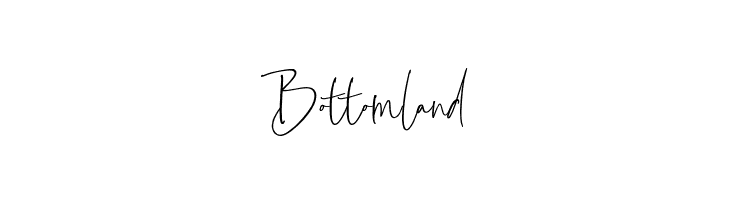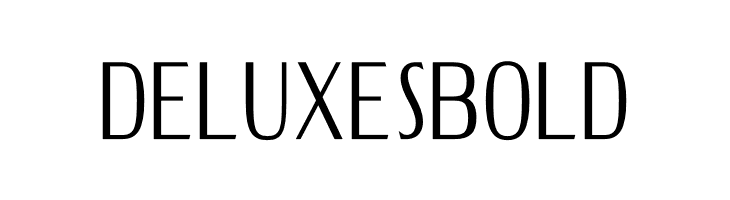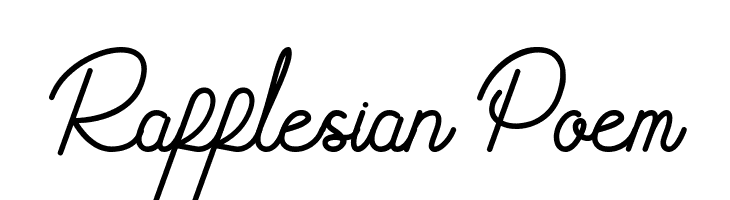
A bold, futuristic italic font with sharp angles and tight spacing.
An elegant script font with flowing, ornate letters and intricate flourishes.
A bold, dynamic handwritten font with playful curves and thick strokes.
A playful, whimsical font with tall, narrow letters and consistent stroke width.
A bold, slanted script font with high contrast and fluid connections.
An elegant script font with flowing, cursive letters and ornate flourishes.
A playful, bubbly font with bold, rounded forms and dynamic curves.
A sleek, italic font with elongated, narrow letterforms and a modern, dynamic style.
A modern, geometric font with rounded edges and consistent stroke width.
A bold, playful, and three-dimensional font with a comic-style flair.